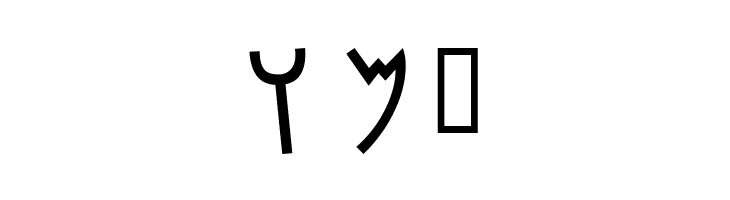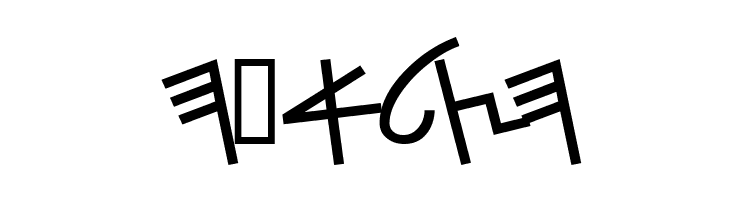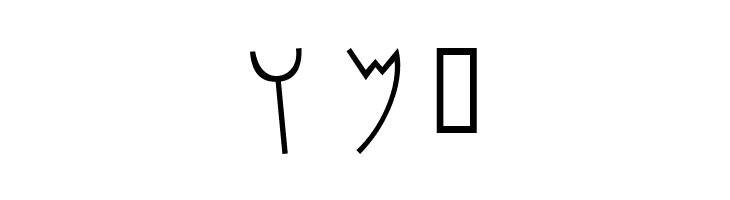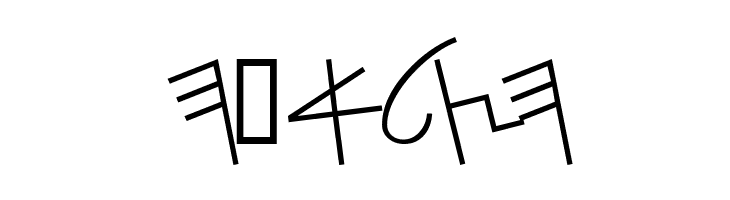
PhoenicianMoabite Bold Font
A bold, decorative font inspired by ancient scripts with angular, geometric shapes.
PhoenicianMoabite Thin Font
A thin, angular font inspired by ancient Phoenician and Moabite scripts.